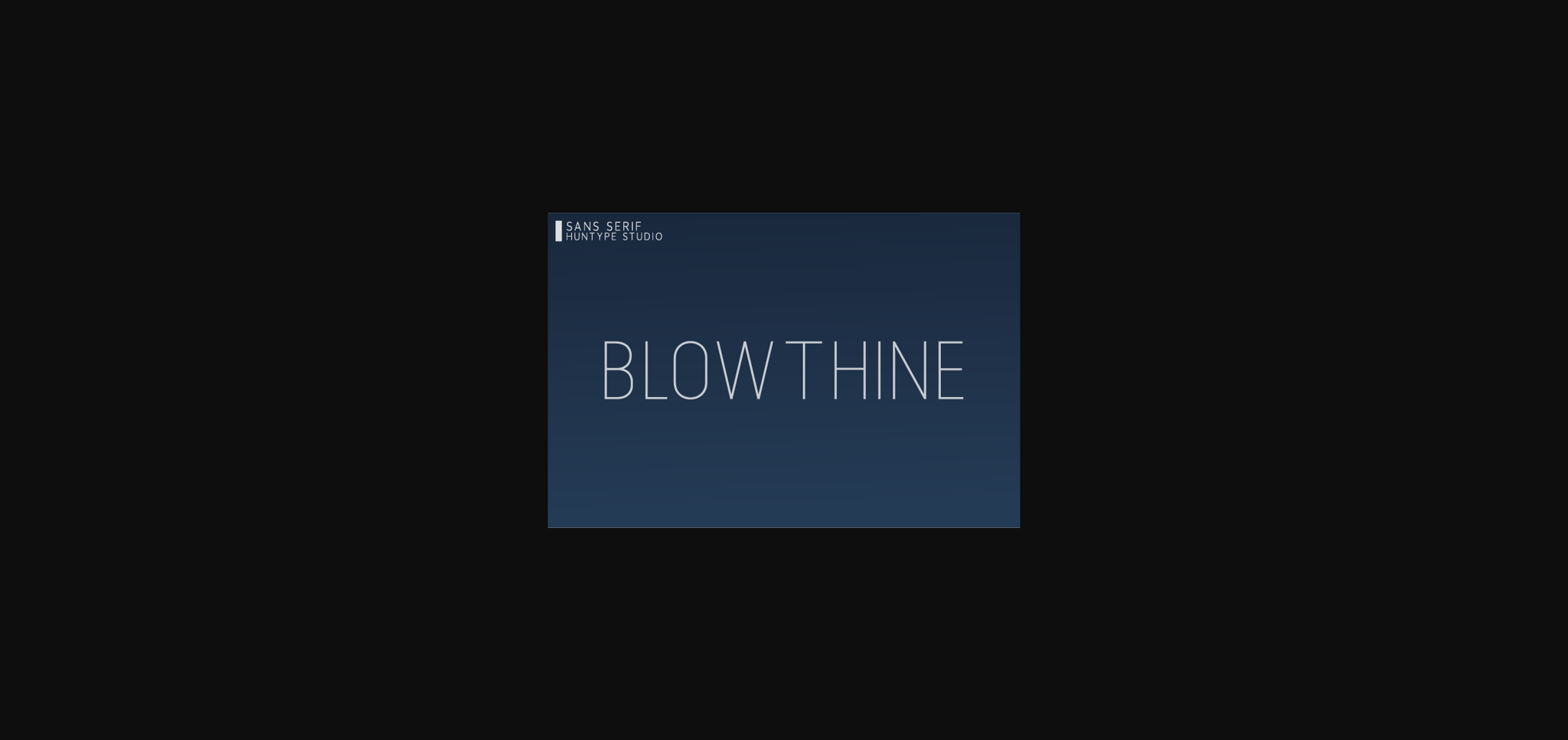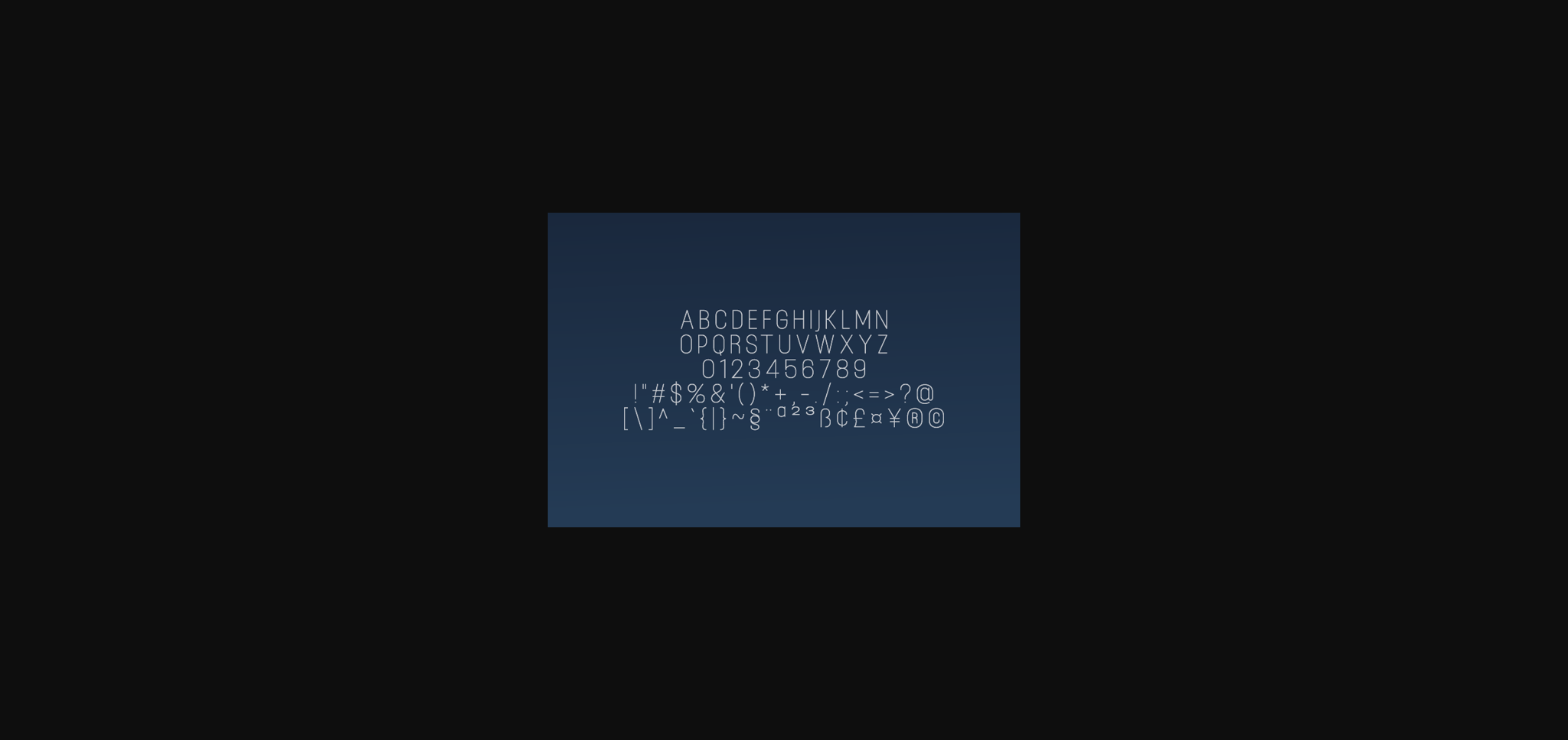
About Blowthine Font
Blowthine is a delicate and romantic sans serif font. It maintains its classy calligraphic influences while feeling contemporary and fresh. This versatility will appeal to a wide range of crafty ideas, from letterheads and titles, to stationery.